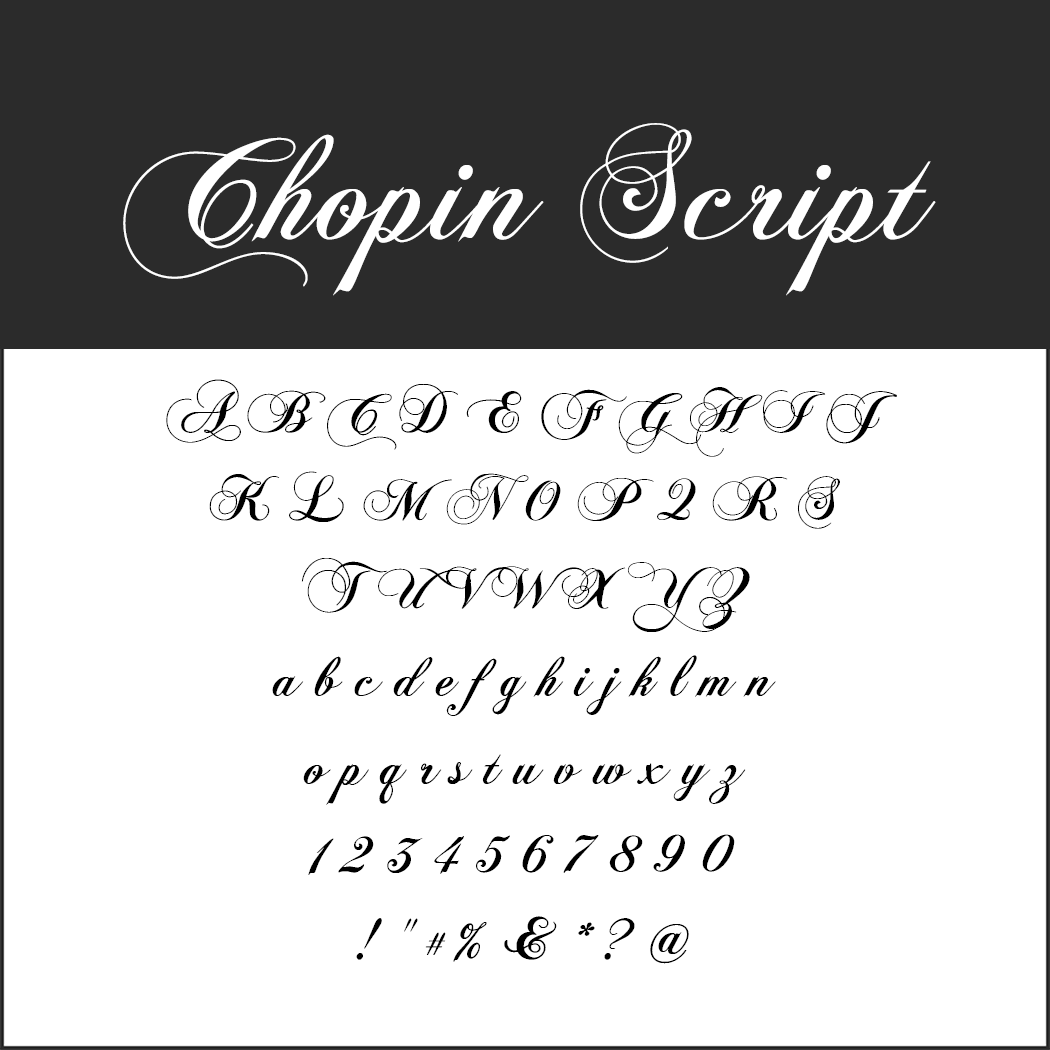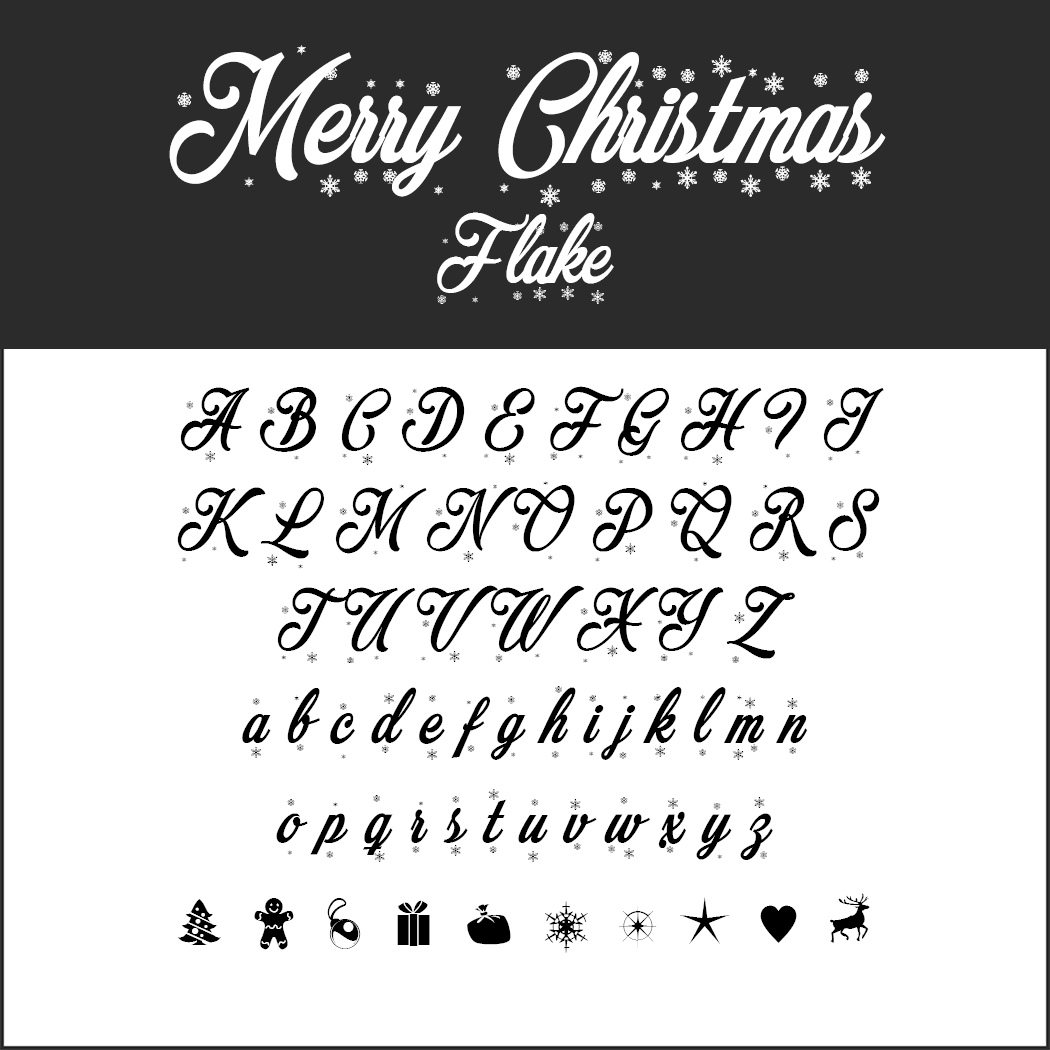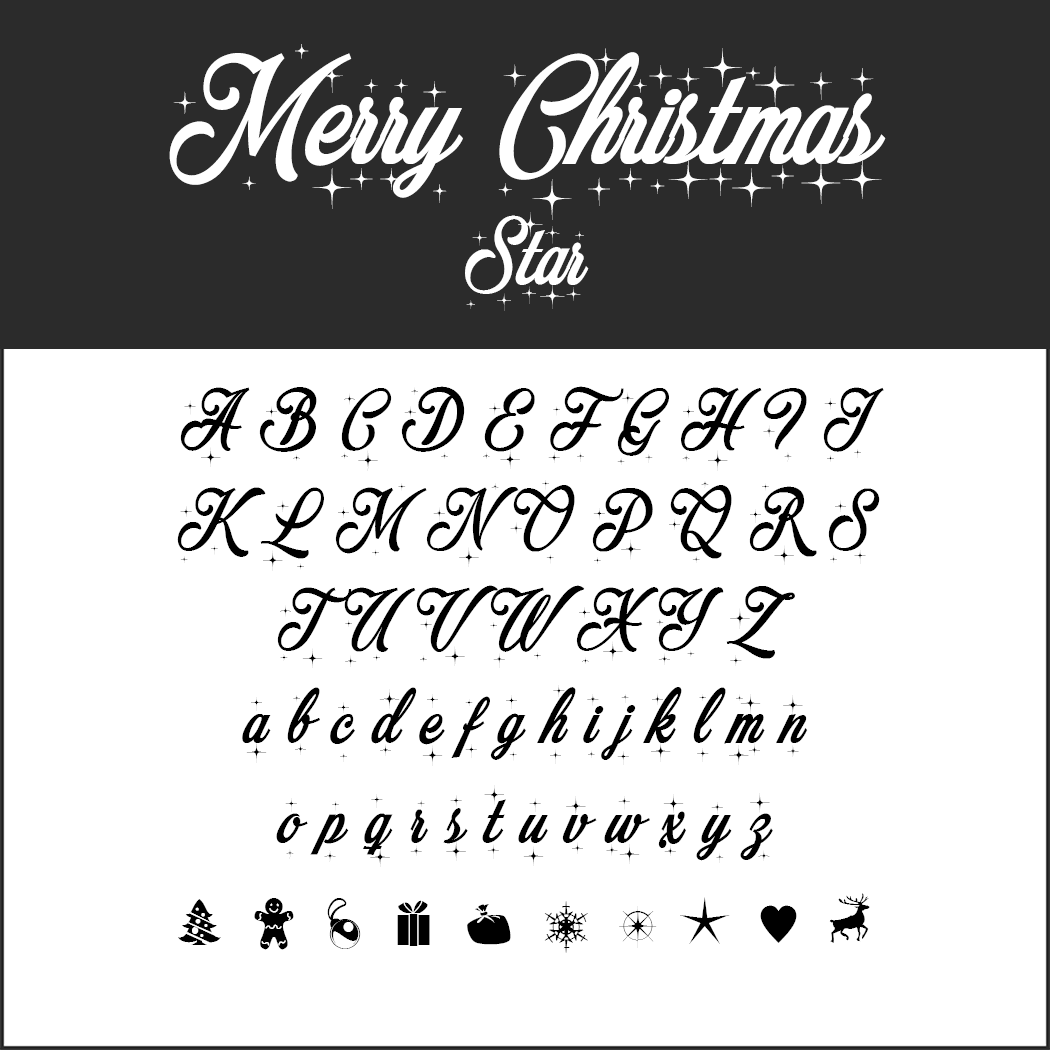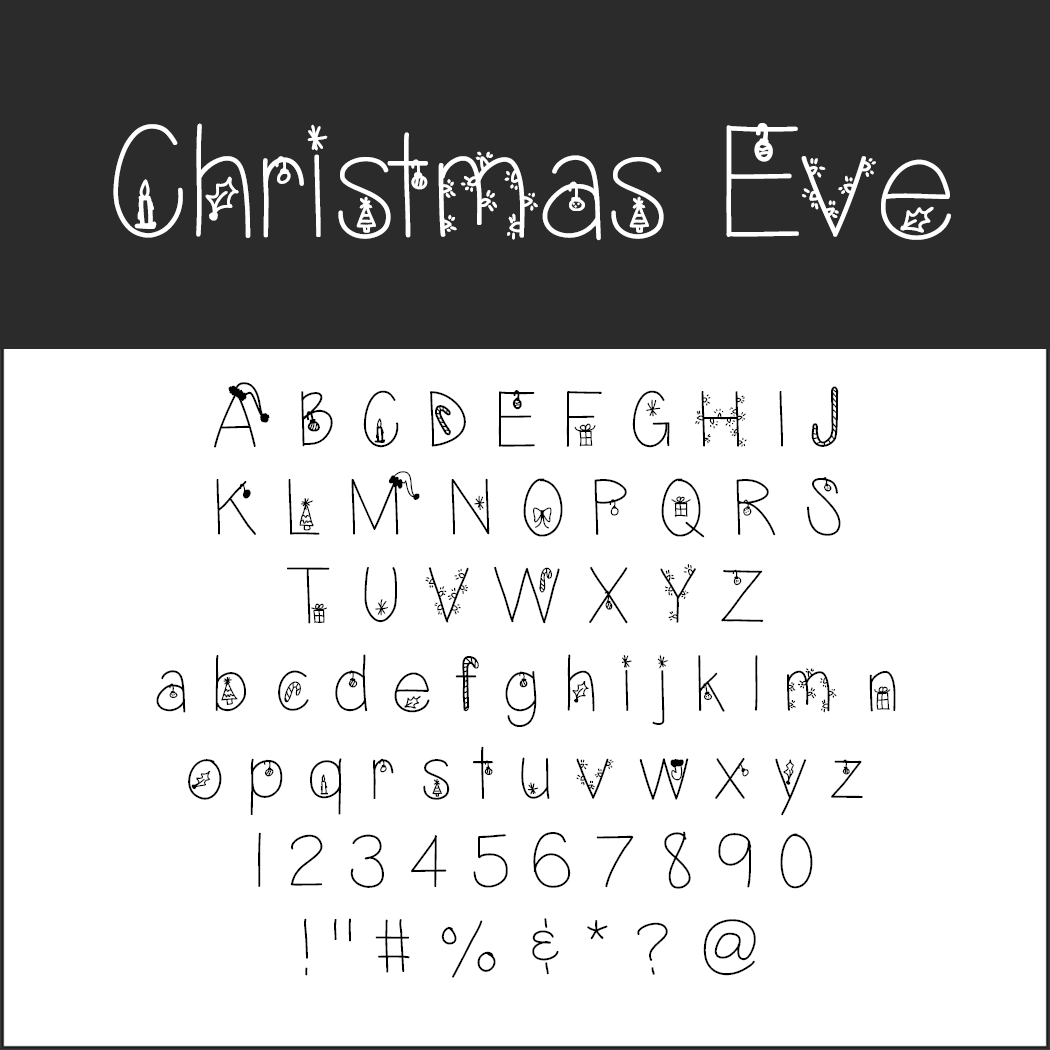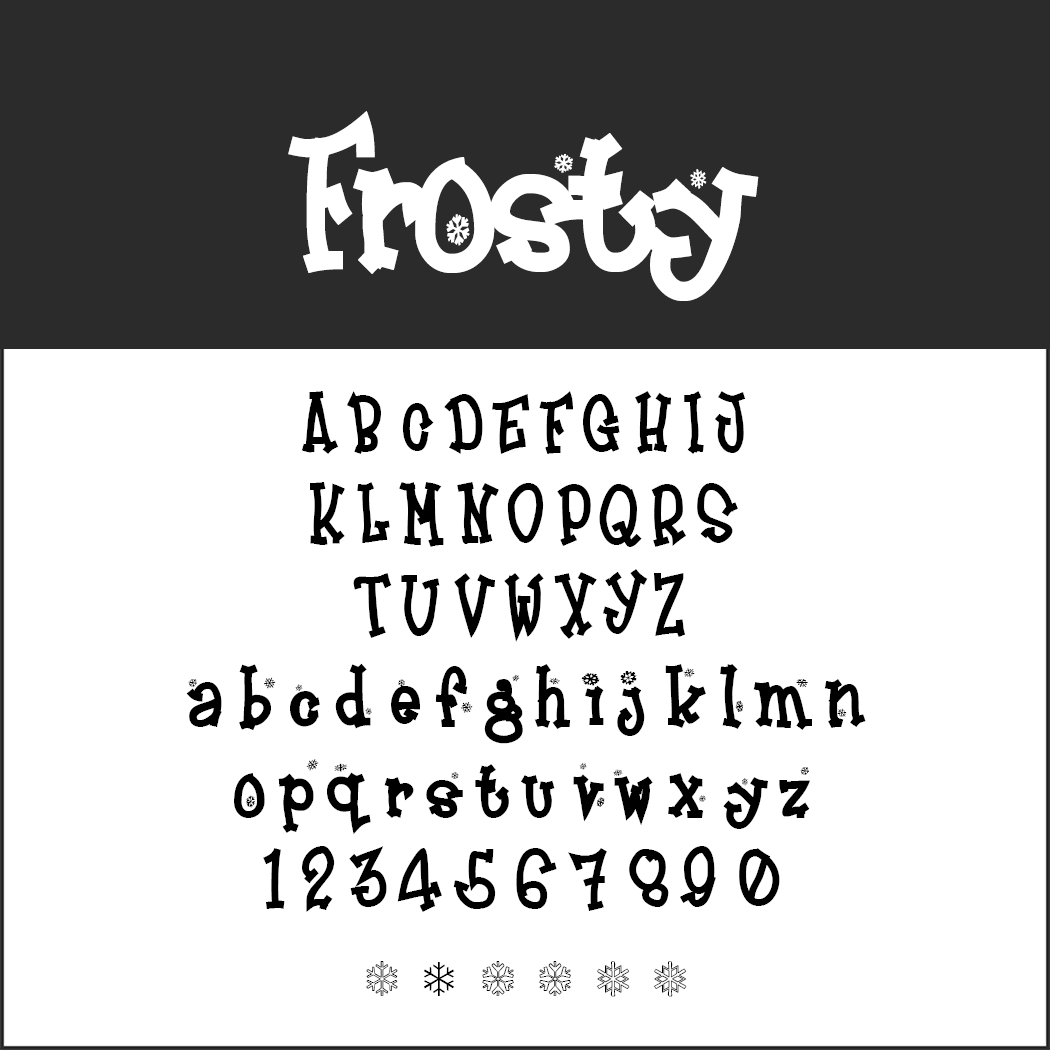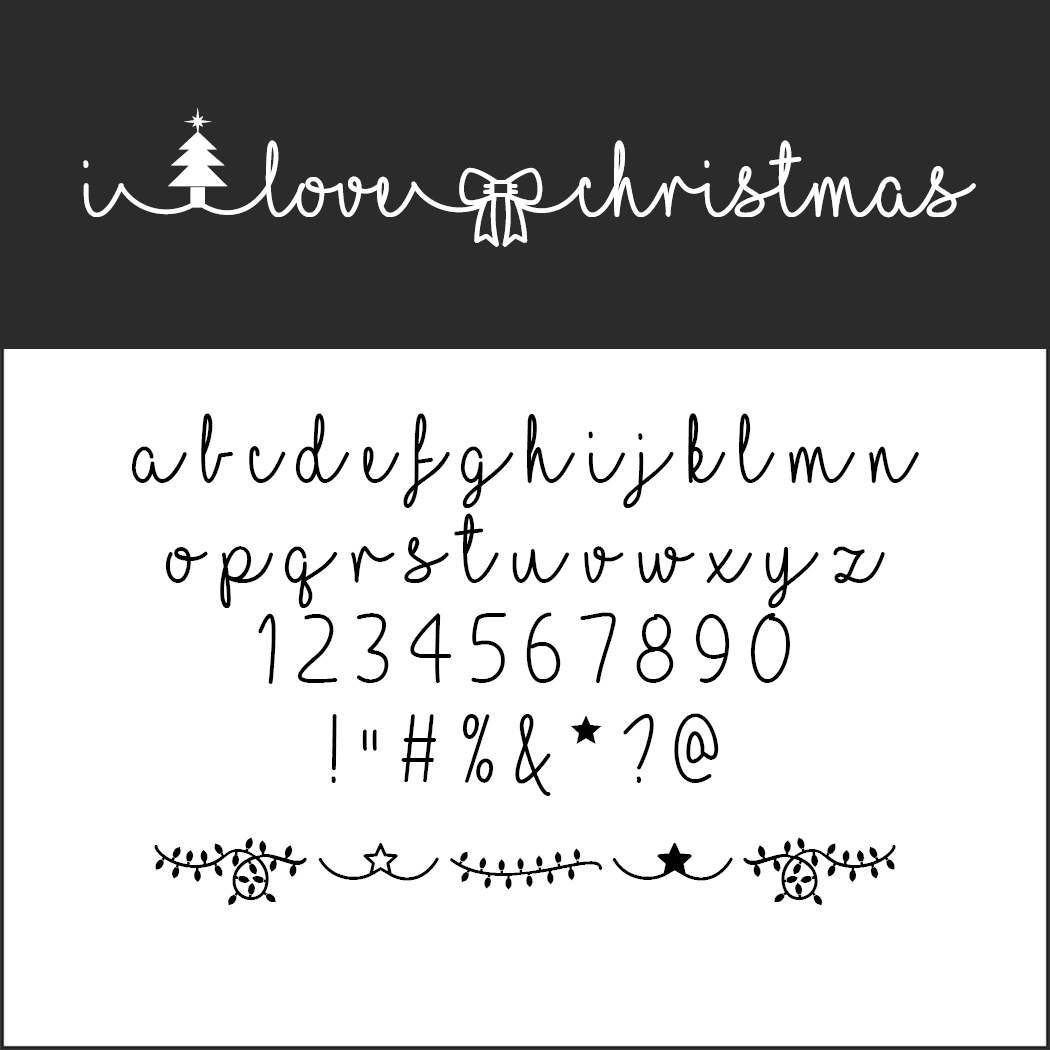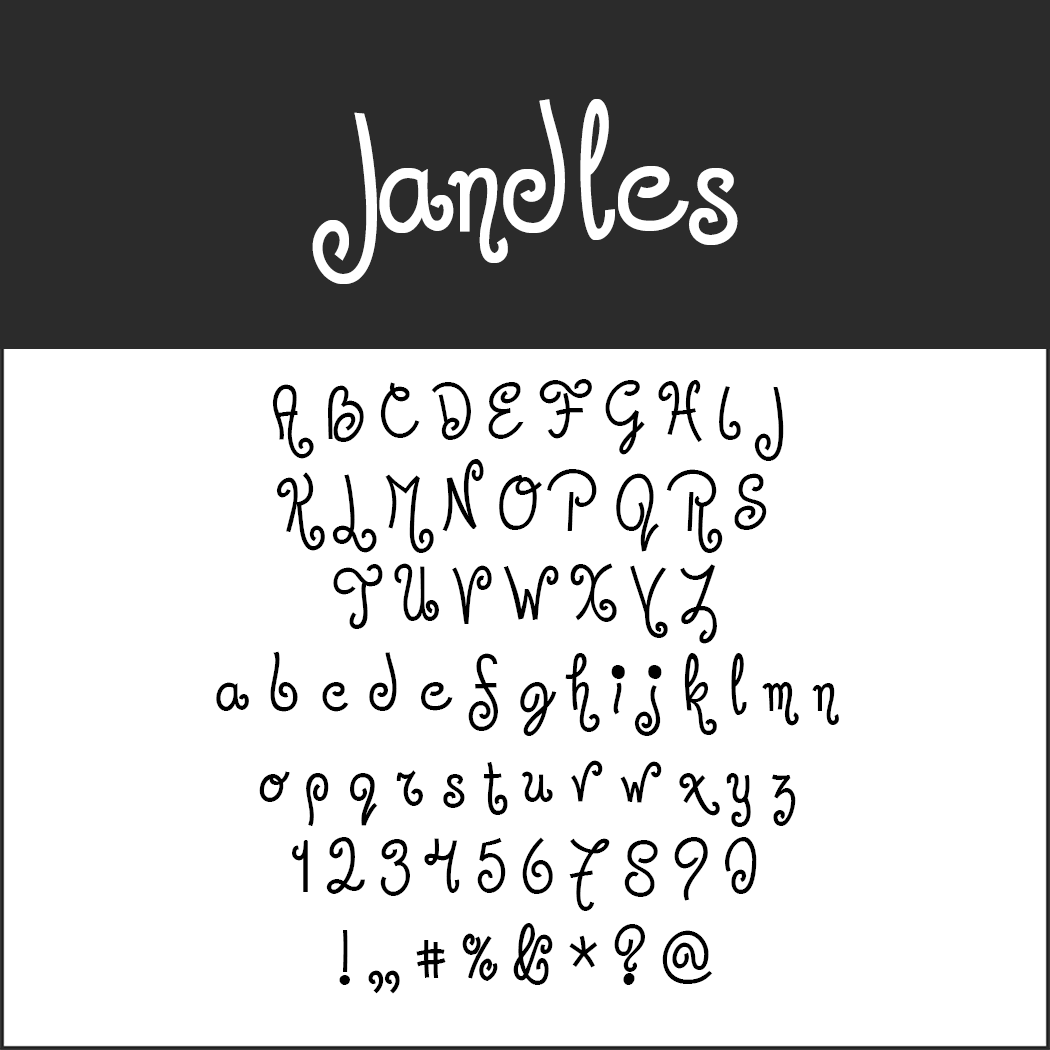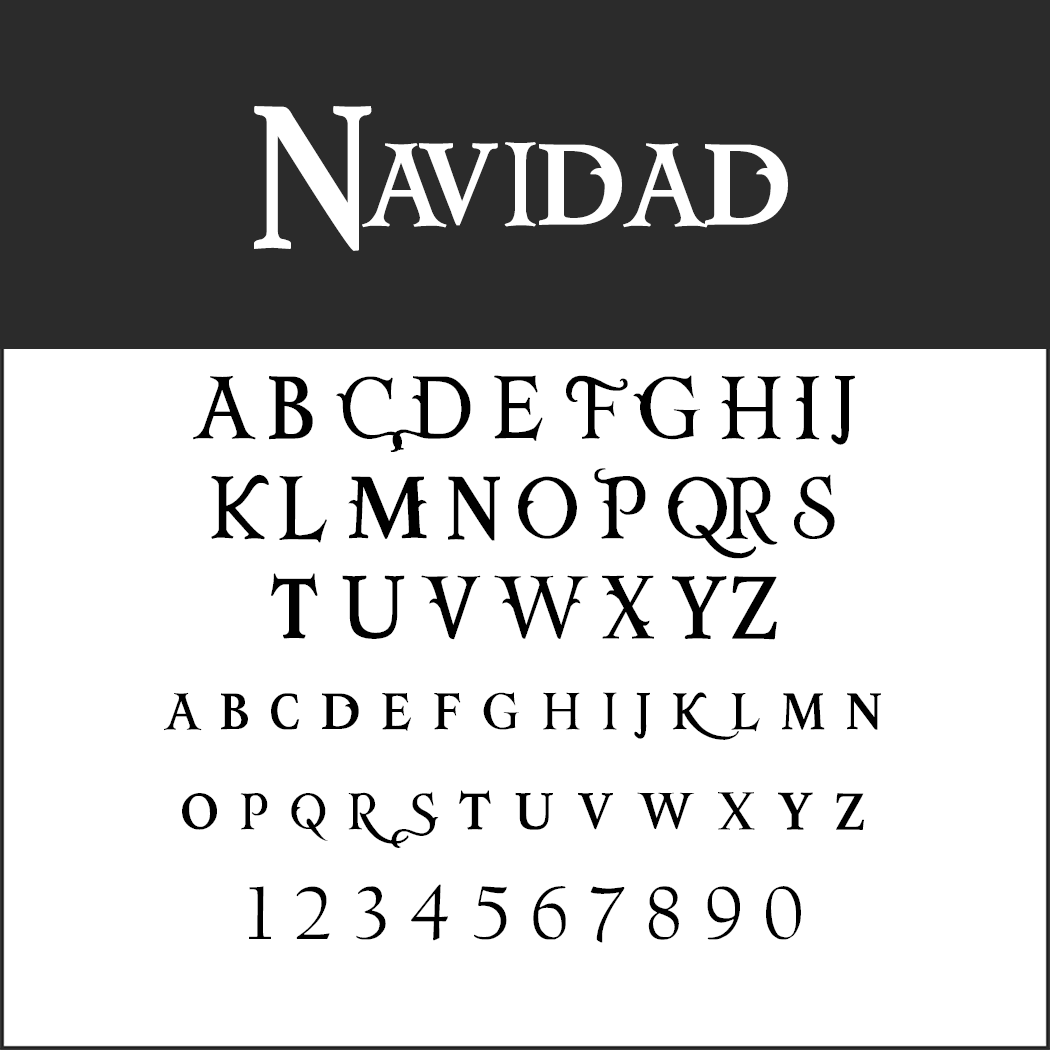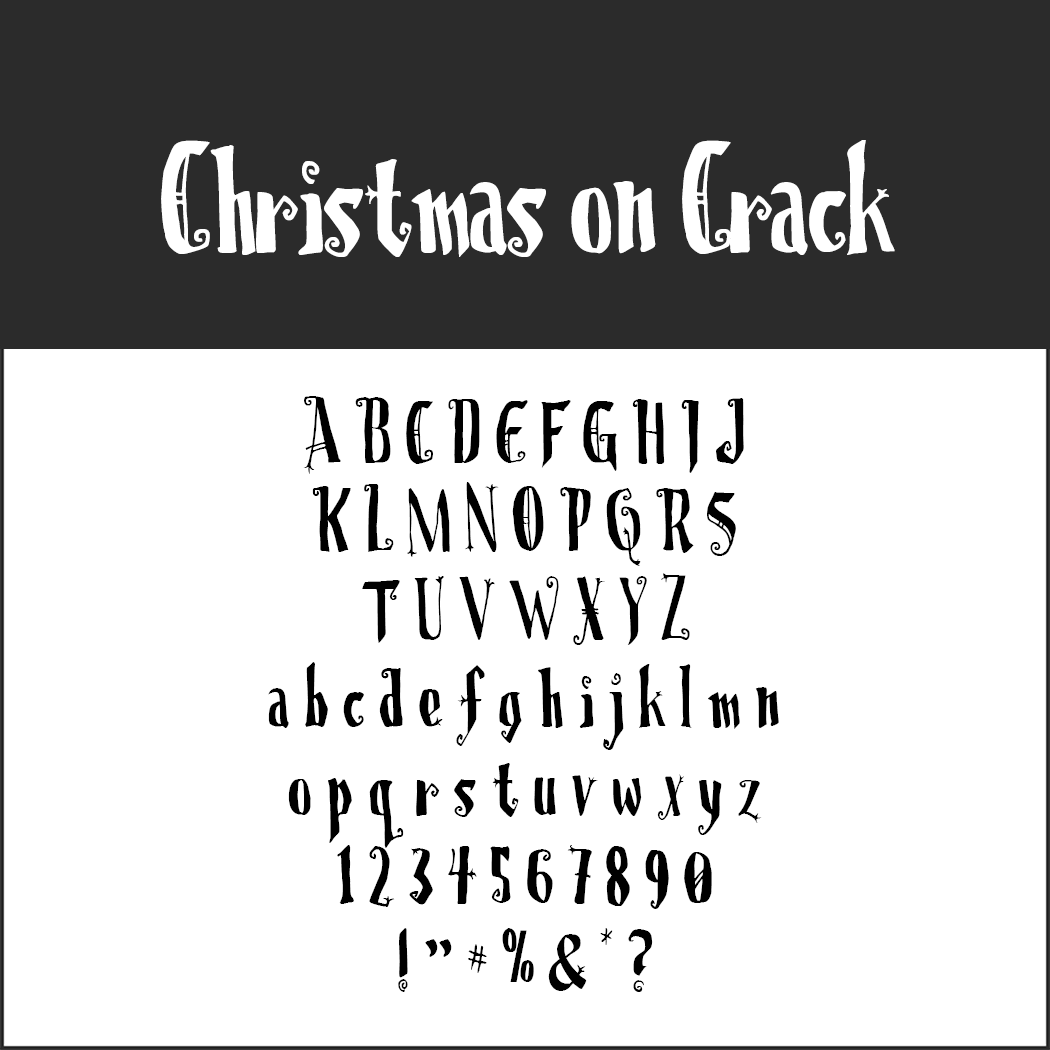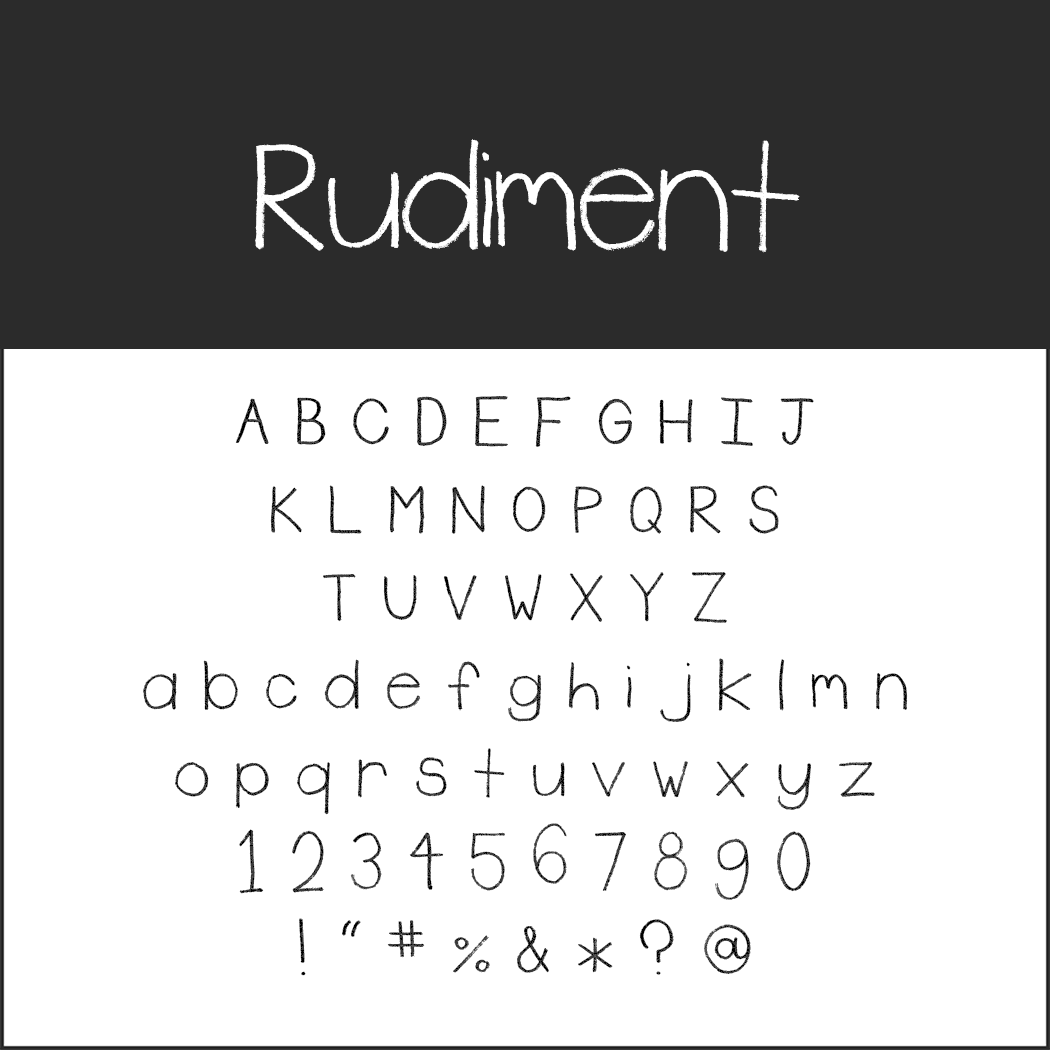
Download free versatile Christmas fonts
Scriptina font sample showing elegant cursive uppercase and lowercase letters, numbers 0–9, and various punctuation marks on a white background with Scriptina written in large script at the top.
Scriptina Font Family
• Design by: Apostrophic Labs
A display showing the font Christmas on Crack with uppercase and lowercase alphabet letters, numbers 0-9, and special characters, all in a quirky, jagged style.
Christmas On Crack
• Note: Includes numbers and standard punctuation marks
• Design by: Parallax
A display of the Chopin Script font shows elegant, cursive uppercase and lowercase letters, numbers 0–9, and select punctuation marks on a white background with a black header.
Chopin Script
• Note: Includes diacritical characters
• Design by: Diogene
A whimsical dotted font sample named JeanSunHo shown in uppercase, lowercase, numbers, and symbols on a white background with a black header.
JeanSunHo Font Family
• Note: Also available in bold at no cost
• Design by: Kevin Richey
A whimsical handwritten font sample called “Jandles” displayed with uppercase and lowercase letters, numbers, and punctuation on a white background.
Jandles
• Note: Includes diacritical characters
• Design by: Raymond Larabie
Sample of a handwritten font called Rudiment shown on a black and white background, displaying uppercase and lowercase letters, numbers 0–9, and various punctuation marks.
Rudiment
• Design by: Kevin Richey
The image shows an alphabet font called “Frosty” with uppercase and lowercase letters, numbers 0–9, and snowflake symbols. The letters have a playful, winter-themed design with snow or ice details.
Frosty
• Note: Various types of snowflakes are available as decorations of lowercase letters and as special characters.
• Design by: Font-a-licious
Sample image of the Santas Sleigh font showing decorative uppercase and lowercase letters, numbers, and symbols in a whimsical, festive style on a black and white background.
A festive font sample titled Santa’s Sleigh Deluxe showing uppercase and lowercase letters, numbers, and symbols in a decorative, holiday-inspired style with holly accents.
Santa’s Sleigh
• Note: The font set includes the three styles Regular, Bold and
• Design by: HypoTypo
Handwritten font sample with the phrase i love christmas in cursive, featuring a tree, ribbon, and star icons. Below are lowercase letters, numbers, punctuation, and decorative elements.
I Love Christmas
• Note: Lowercase letters only Additionally includes diacritical characters and Christmas-themed icons
• Design by: Misti´s Fonts
Christmas-themed decorative font displaying Christmas Eve and the full alphabet in uppercase and lowercase, along with numbers and symbols, featuring festive elements like trees and ornaments in the letters.
Christmas Eve